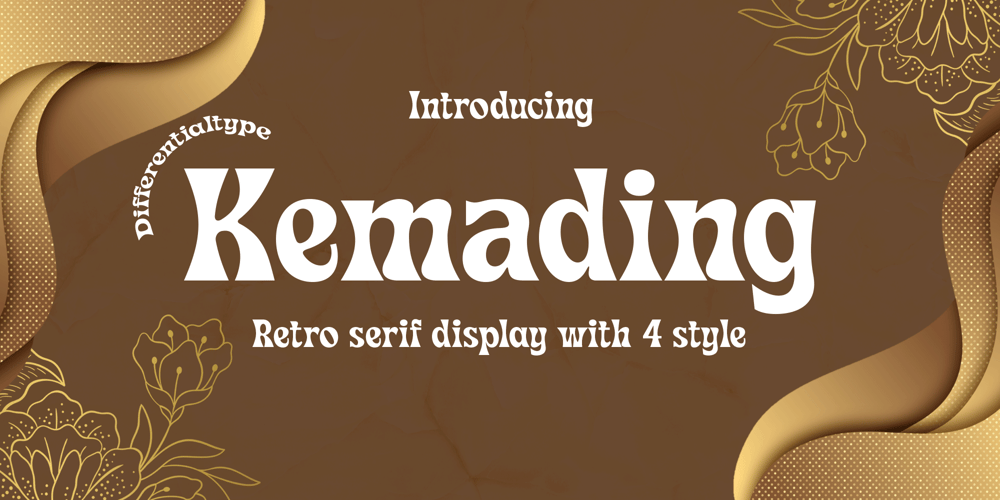
Kemading Font Family was designed by Sidik Sidik and published by Differentialtype. Kemading contains 4 styles and family package options. Kemading is a retro serif font that has a vintage, cute, fun and bold feel. Comes with four styles, regular, italic, outline and outline italic. Kemading’s design is unique and energetic, making it perfect for adding a touch of fun nostalgia to logos, crafts, posters, branding, stickers and many other projects.